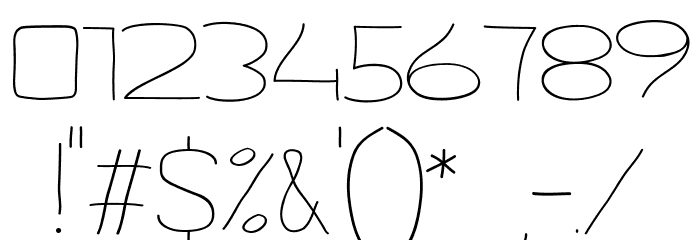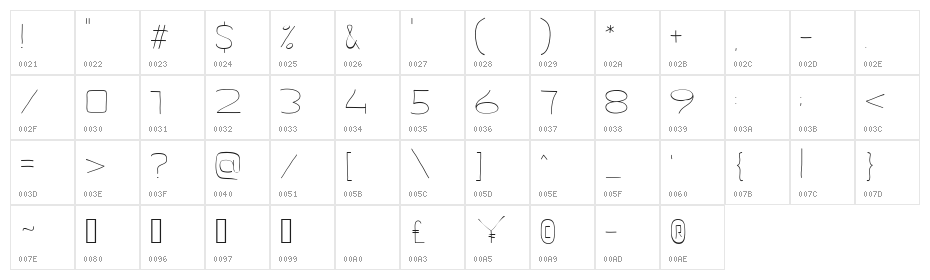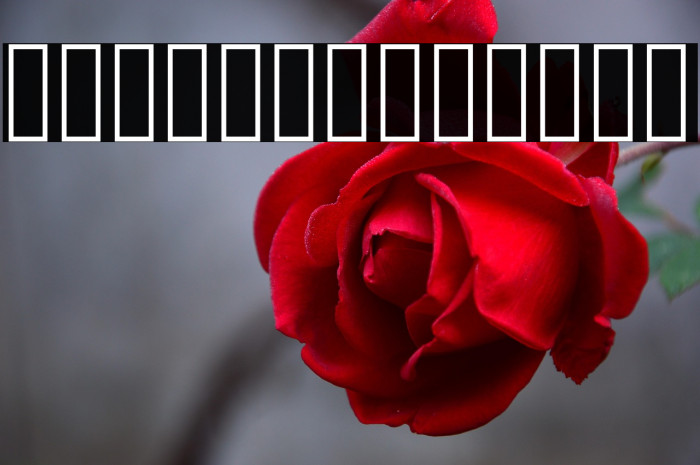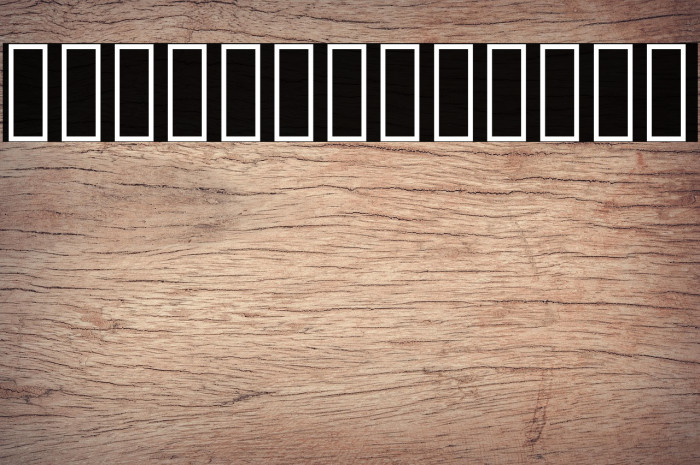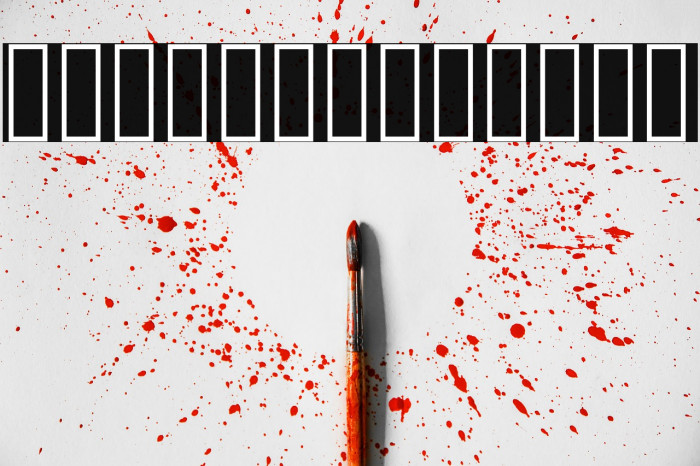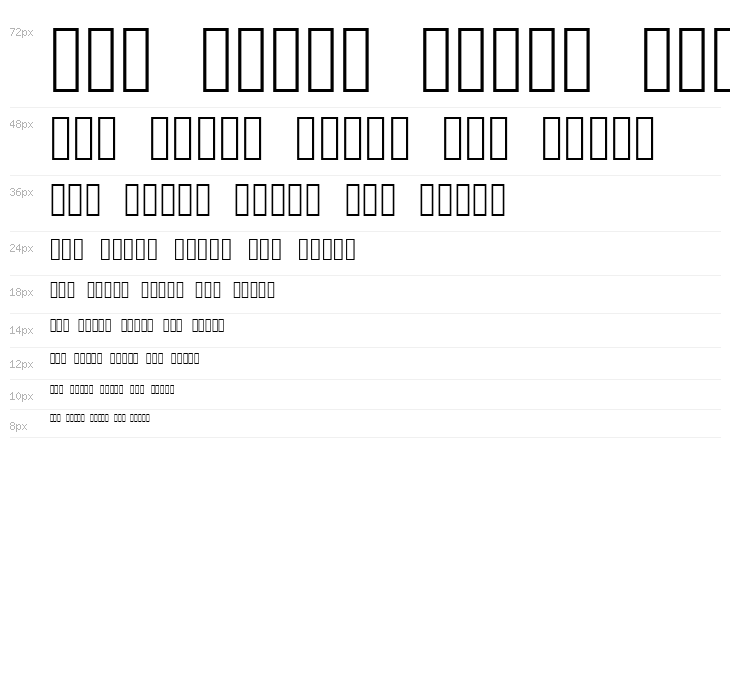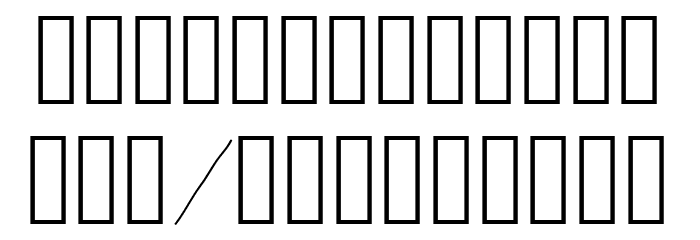
PtilWide Regular Font
PtilWide Regular Description
This font features a modern, clean design with a wide stance, giving it a spacious and airy appearance. The characters are uniformly structured with a consistent stroke width, contributing to a balanced and harmonious look. The uppercase letters are bold and prominent, while the lowercase letters maintain a similar width, ensuring readability. The numerals are distinct and easily distinguishable, with a slight curvature that adds a touch of elegance. Special characters are well-integrated, maintaining the overall aesthetic of the font. The font's simplicity and clarity make it versatile for various design applications.